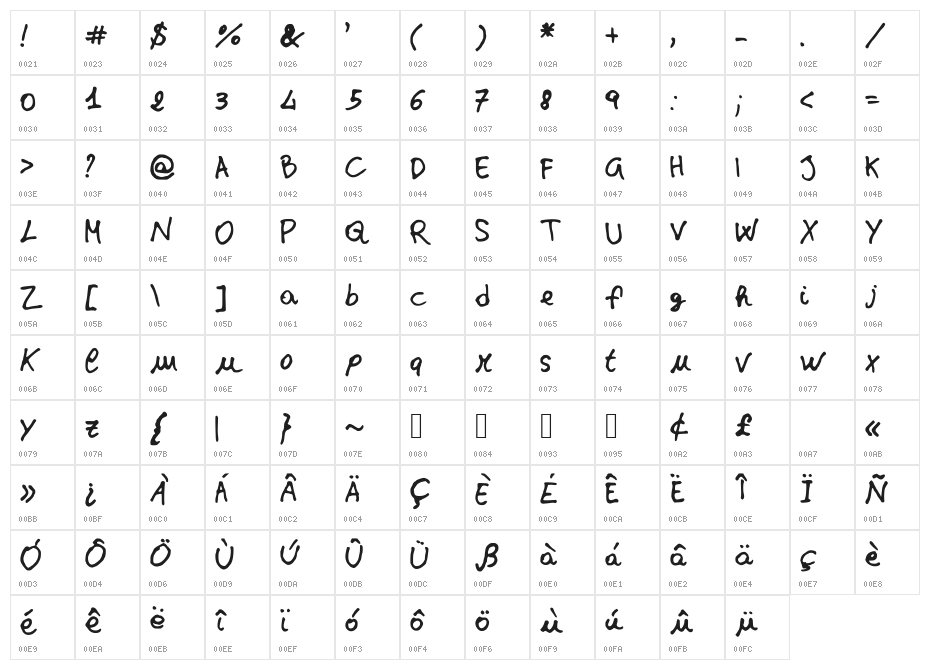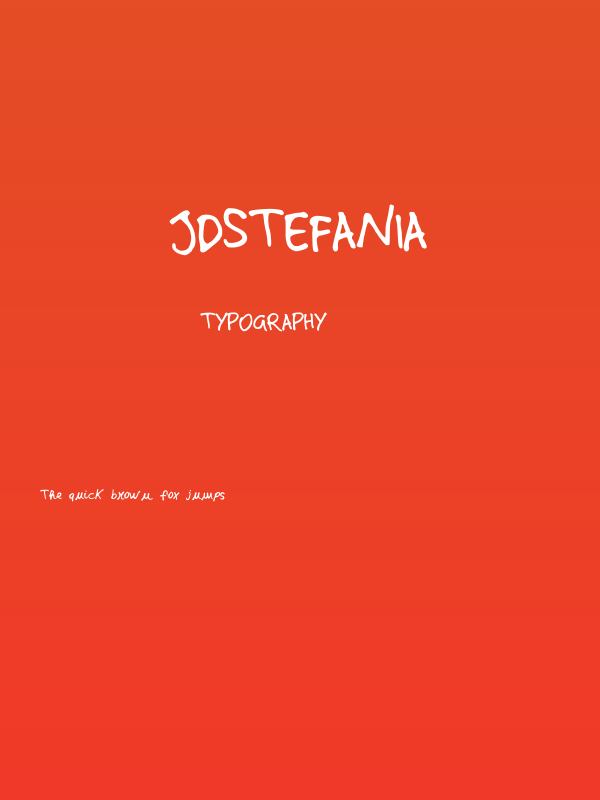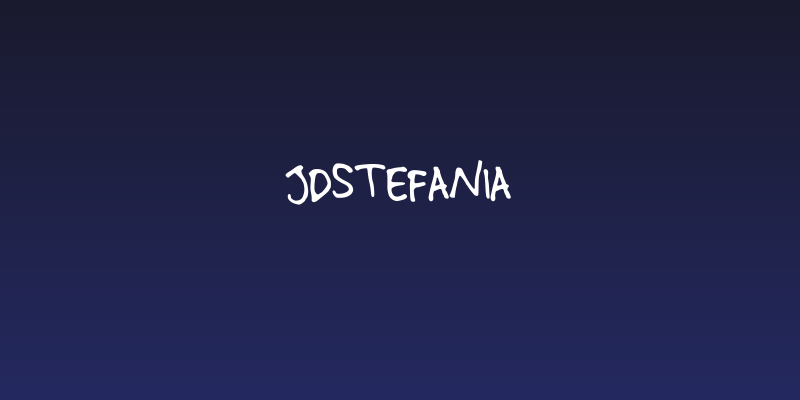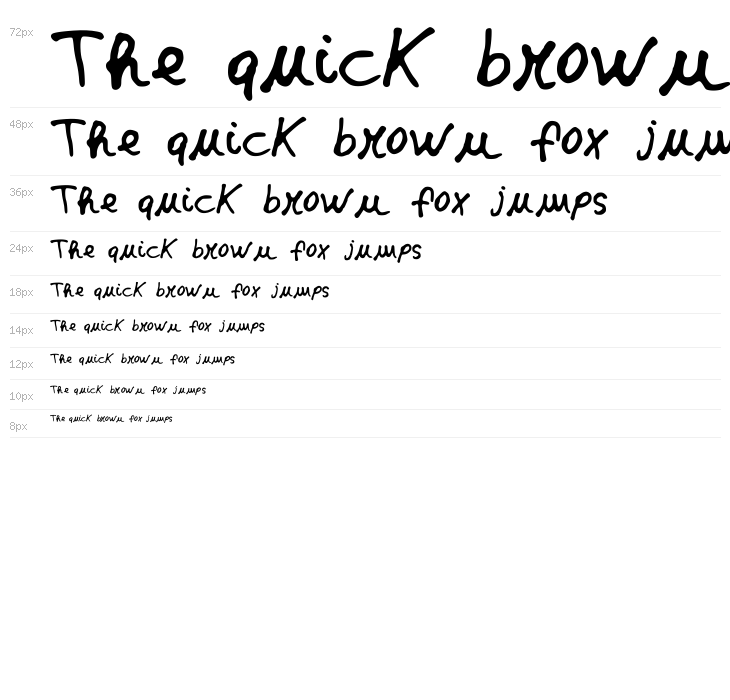
JDStefania Font
JDStefania Description
This font exudes a playful and casual handwritten style, characterized by its irregular strokes and organic flow. The letters have a spontaneous, freeform appearance, with varying thickness that adds a dynamic and lively feel. The uppercase and lowercase letters maintain a consistent style, with rounded edges and a slightly slanted orientation, giving it a relaxed and approachable look. The numerals and special characters follow the same informal aesthetic, making the font suitable for projects that require a personal touch. Its unique charm lies in its ability to convey warmth and friendliness, making it ideal for creative and informal applications.
| Proposed Projects | Ideal for greeting cards, personal invitations, children's books, and creative branding. |